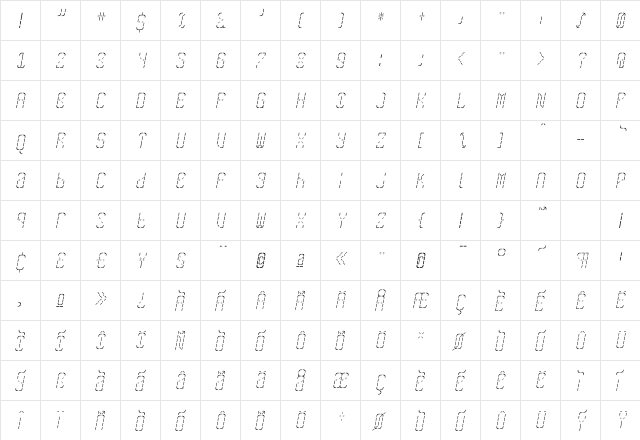
SkreanFine Oblique Regular
Design Context for SkreanFine Oblique Typeface
SkreanFine Oblique is a composed and adaptable typeface that performs quietly and consistently across a wide range of design contexts. The dynamic lean of this cut emphasises speed and emphasis in any layout.
Pro Tip: Try SkreanFine Oblique for annotation and caption copy alongside an upright companion — the contrast in angle creates a dynamic but ordered typographic system.